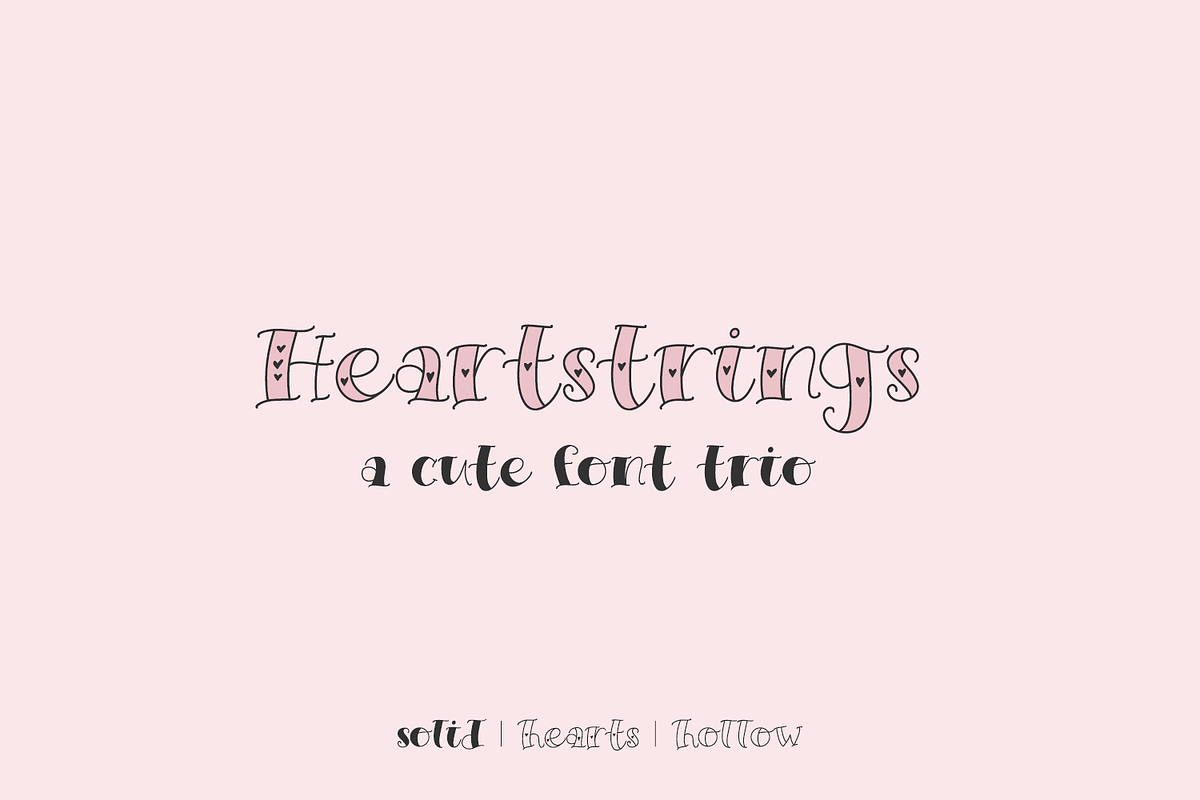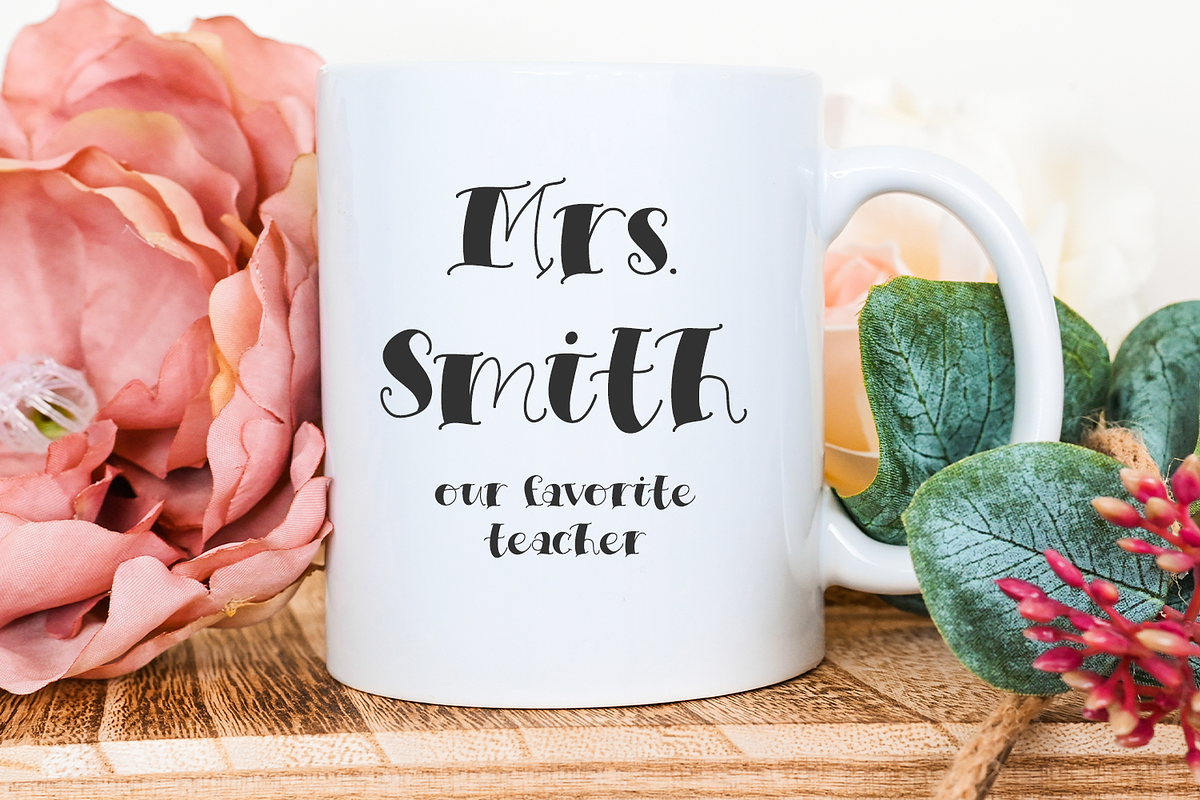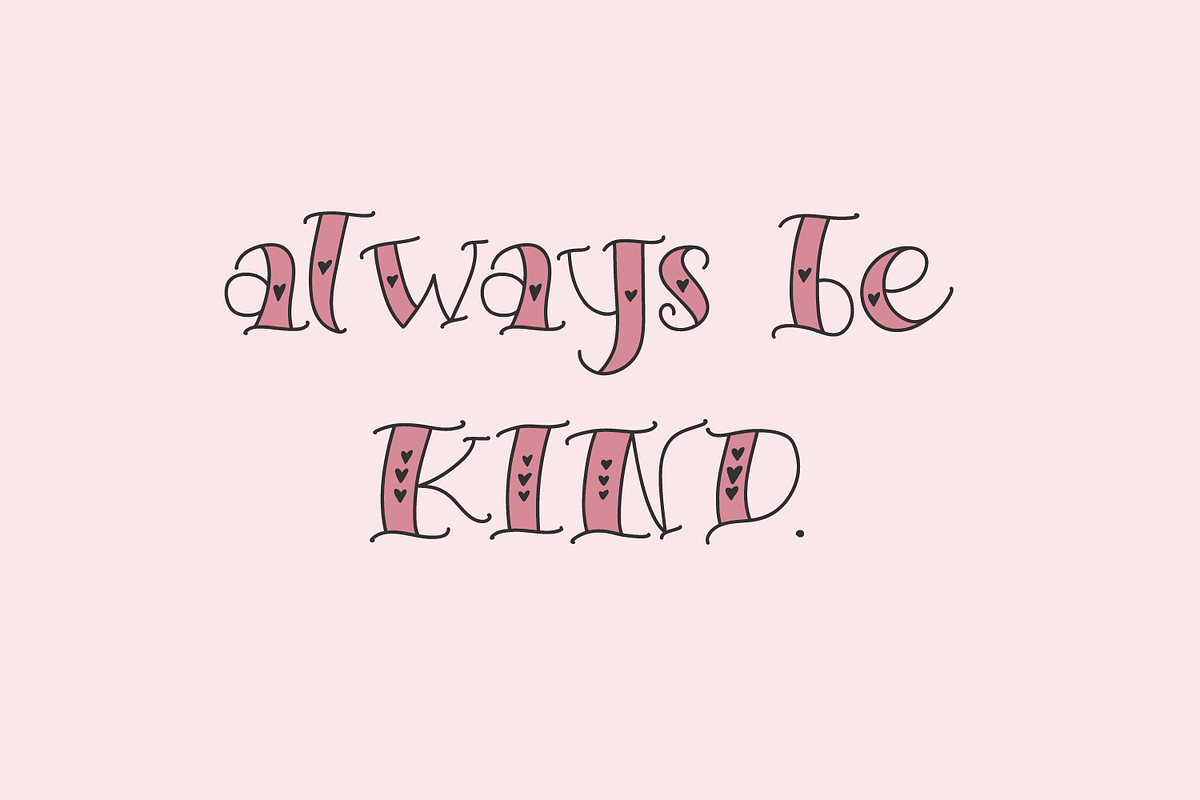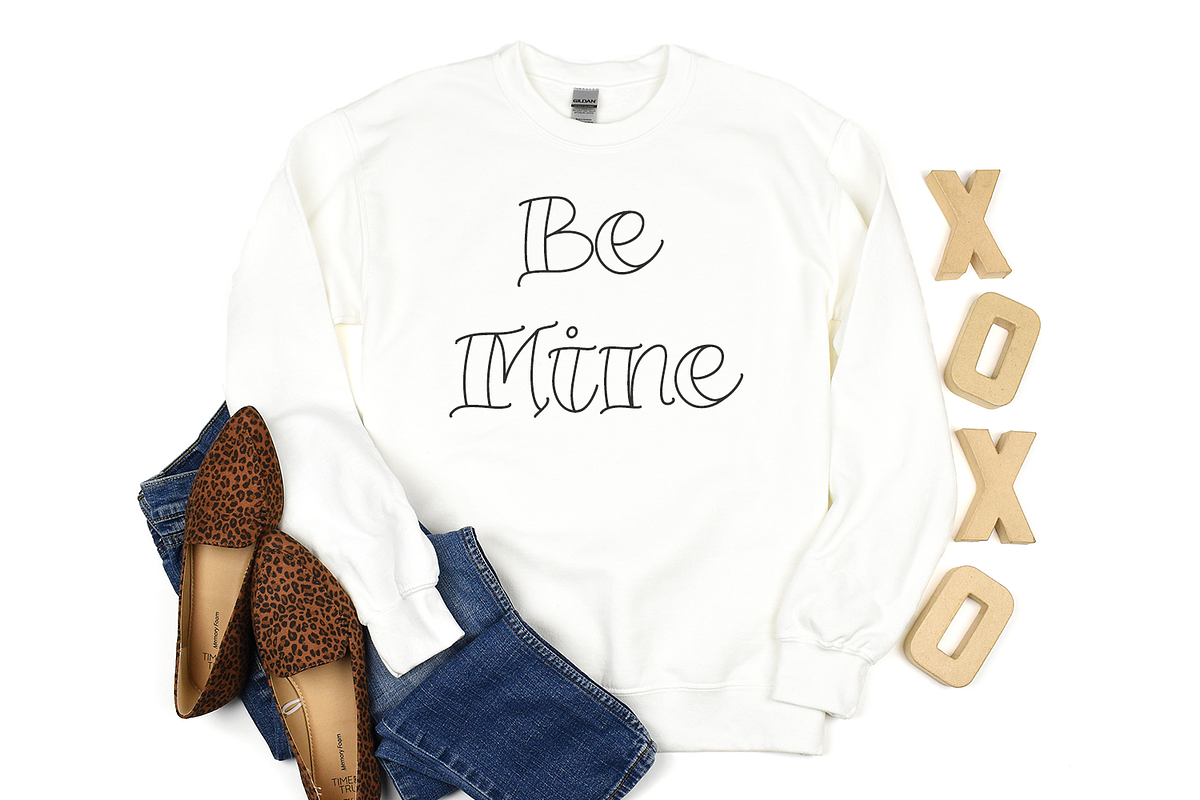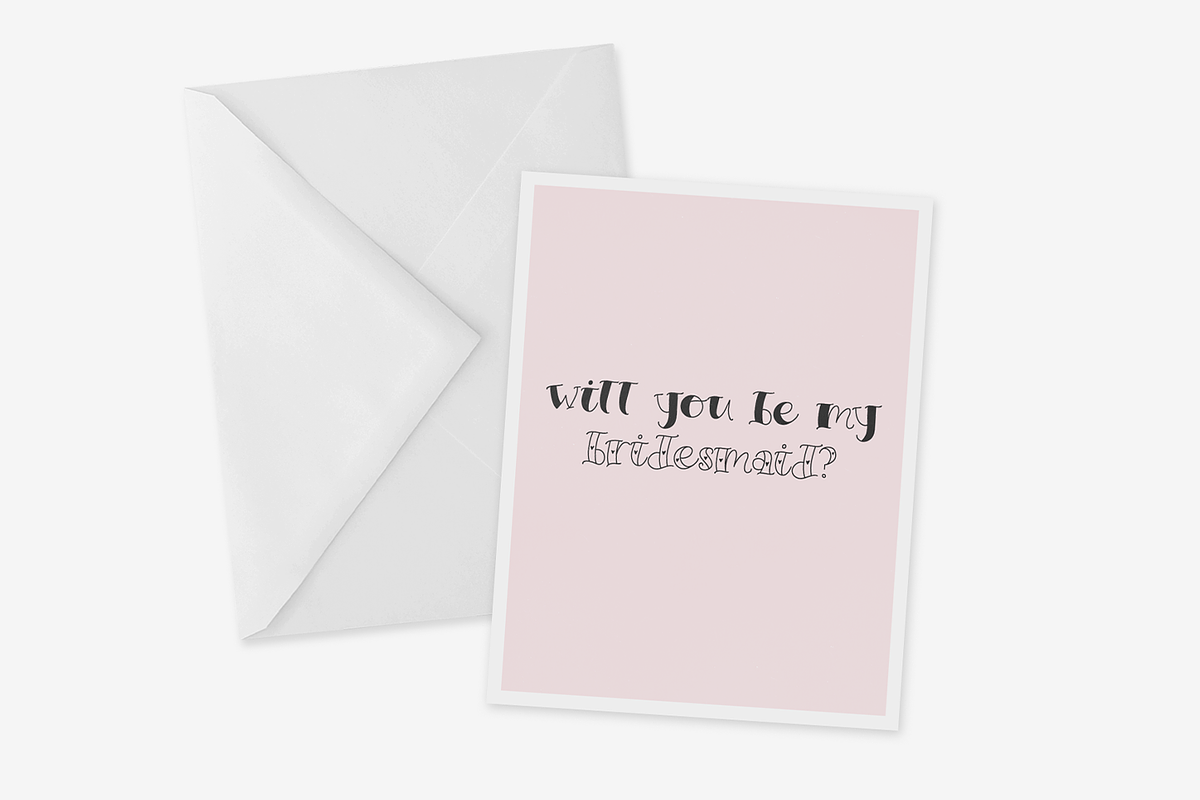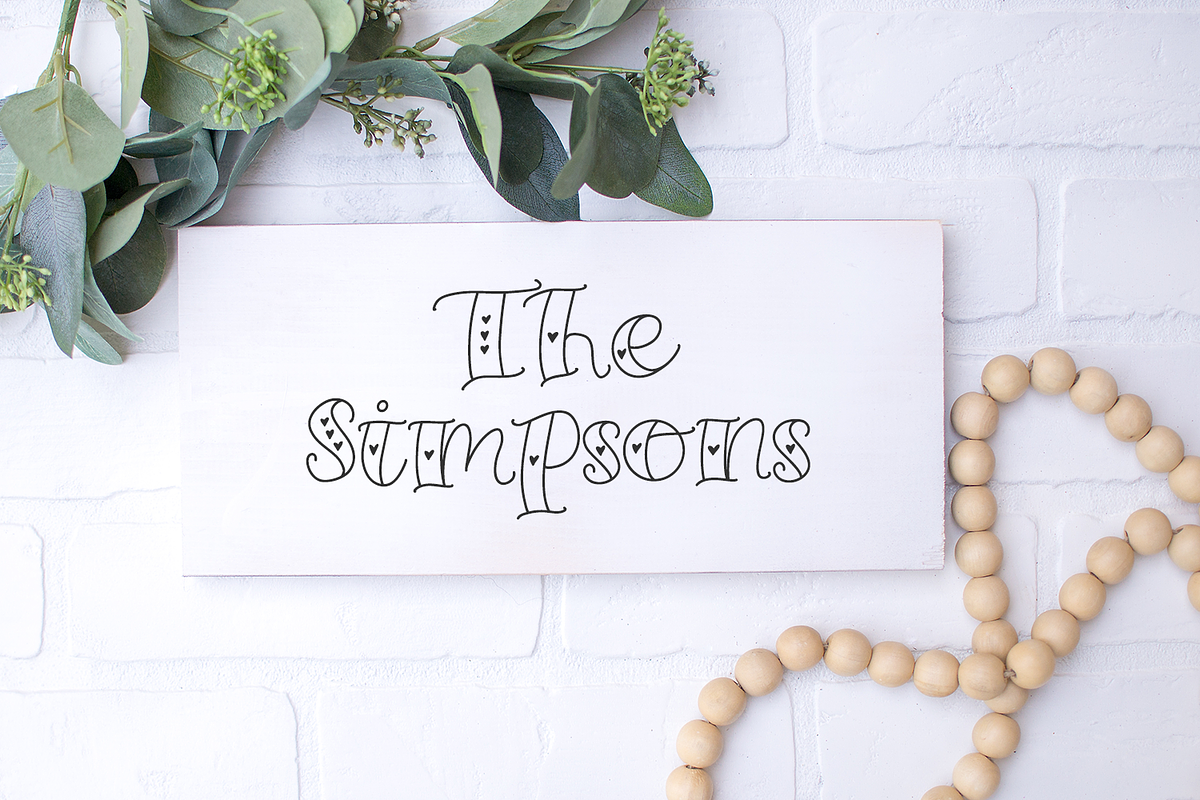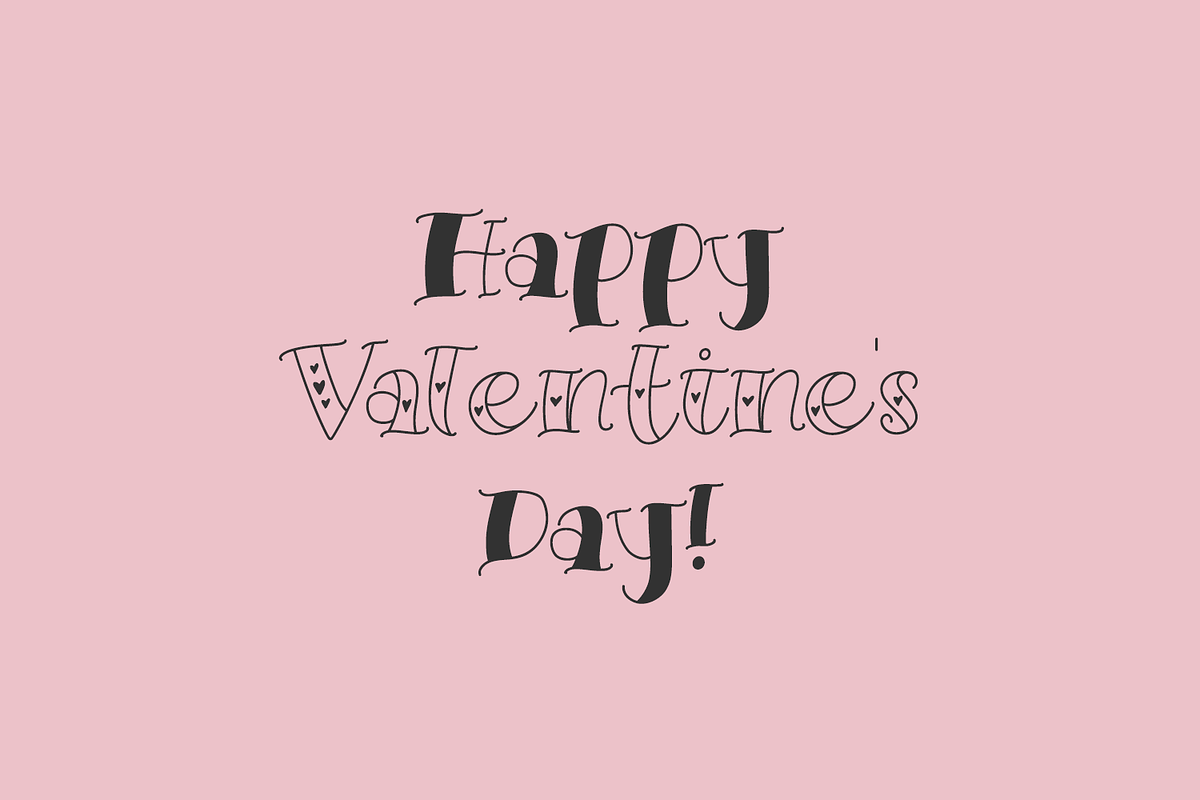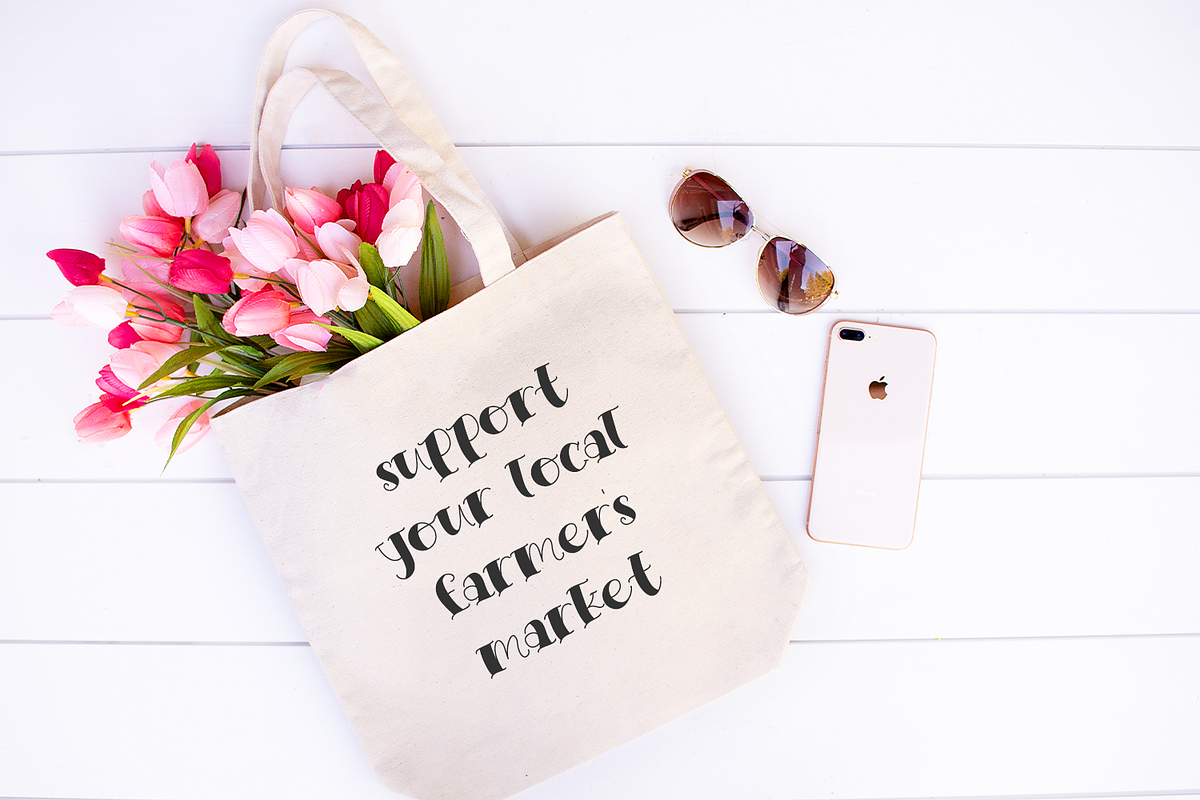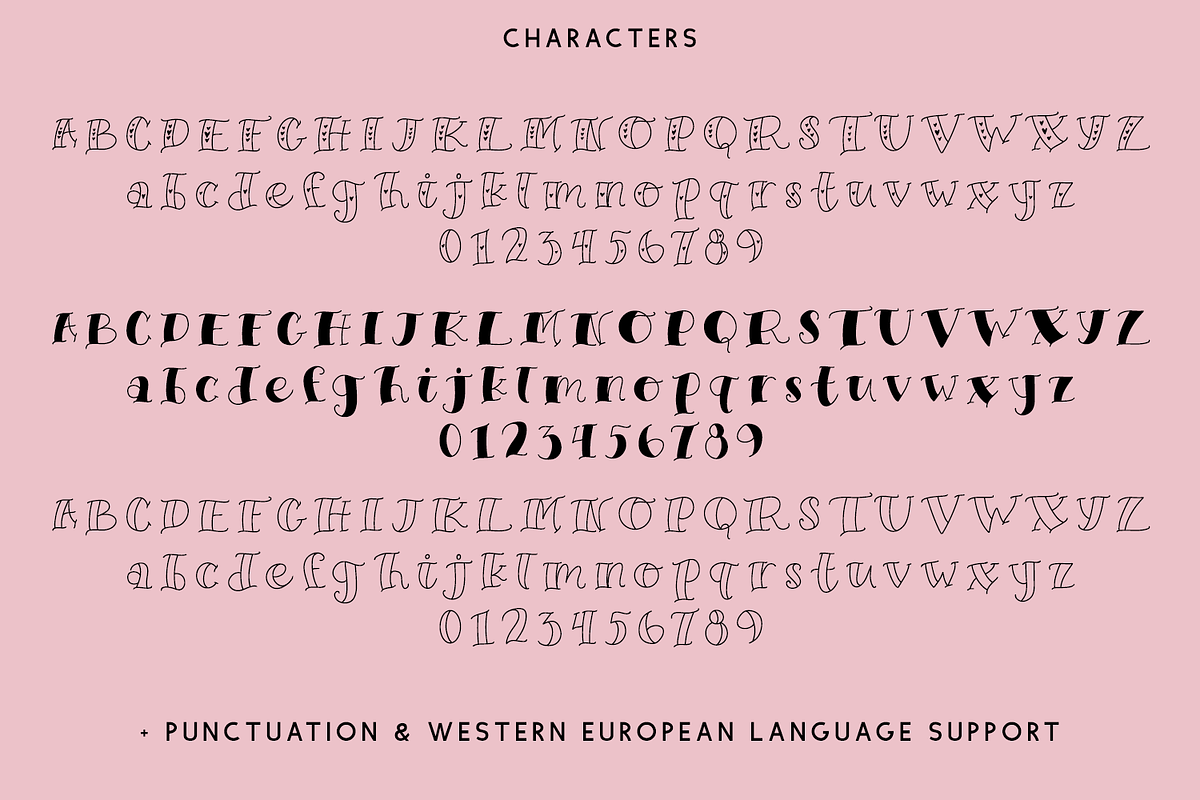
Heartstrings Font Trio
Say hello to Heartstrings, a serif trio. Heartstrings comes in solid, hollow, and with heart details. It would be the perfect fit for anything Valentine’s Day or love related, and is also great for playful crafting projects, eye-catching marketing materials, and more.
Heartstrings includes:
- full upper + lowercase characters
- numbers + punctuation
- Western European language support